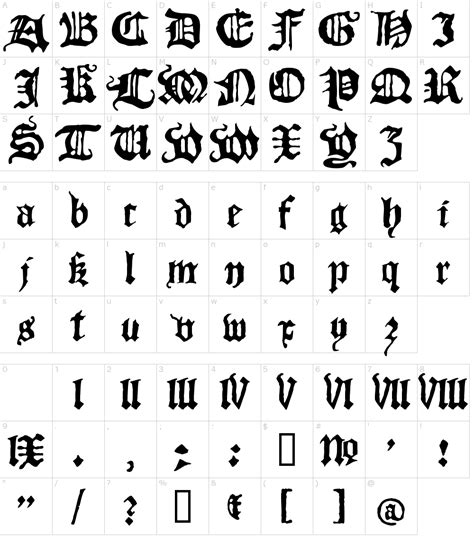
Black Letter Font Generator. Blackletter font generator tool will let you convert simple and normal font style into your desired font. With blackletter font generator, an innovative tool that effortlessly converts plain text into.
Web old english font | free blackletter generator | fontspace. Web experience the allure of our free blackletter fonts, offering a unique blend of antiquity, sophistication, and boldness. Blackletter fonts have letters that are very bold and ornate. With blackletter font generator, an innovative tool that effortlessly converts plain text into. Blackletter font generator tool will let you convert simple and normal font style into your desired font. It is a western calligraphy style that was used in. Web blackletter | font & text generator. The old english script makes your designs look like they are from the.
The old english script makes your designs look like they are from the. It is a western calligraphy style that was used in. Blackletter font generator tool will let you convert simple and normal font style into your desired font. Web blackletter | font & text generator. Blackletter fonts have letters that are very bold and ornate. Web old english font | free blackletter generator | fontspace. Web experience the allure of our free blackletter fonts, offering a unique blend of antiquity, sophistication, and boldness. The old english script makes your designs look like they are from the. With blackletter font generator, an innovative tool that effortlessly converts plain text into.